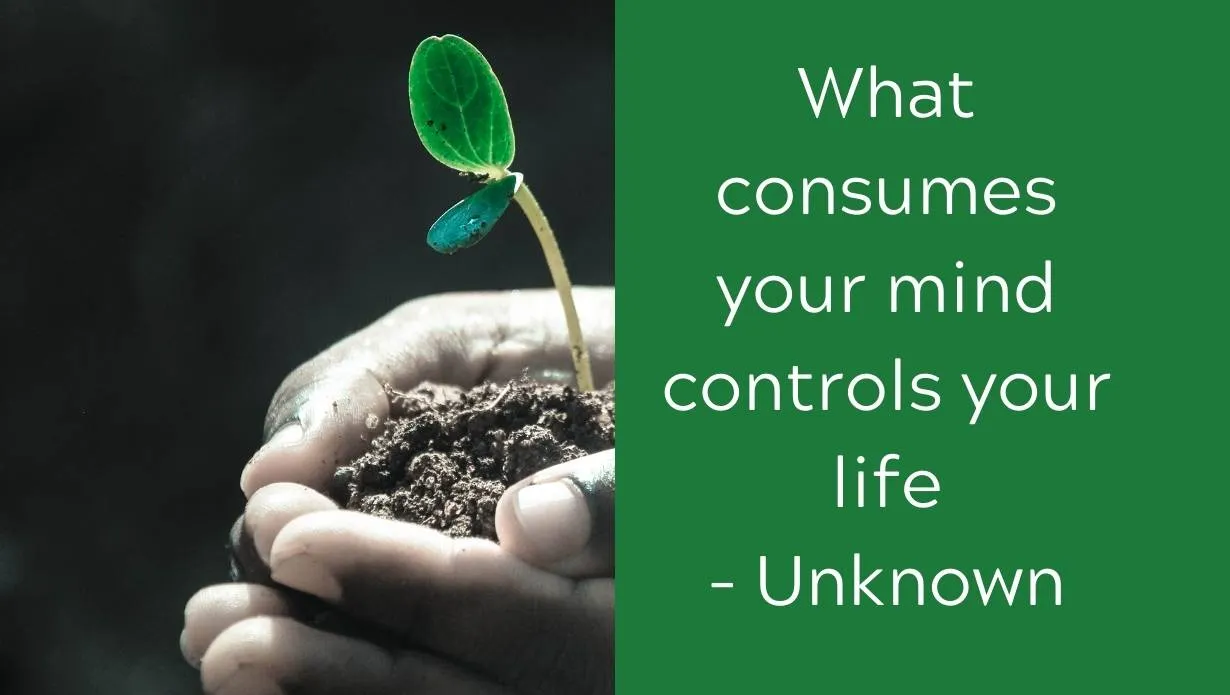
Welcome, today are going to introduce to you the best unique typeface style. This typeface is known as the name Acherus Grotesque Font. This stylish and fantastic typeface was designed by a well-known graphic designer called Ufuk Aracıoğlu. It was published by Horizon Type.
This beautiful and simple texture has a very smart and stunning texture look appearance for the watchers.